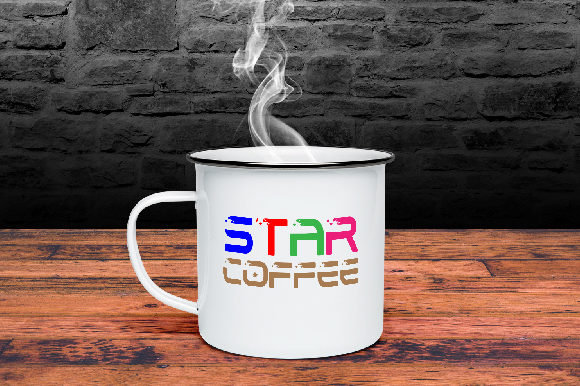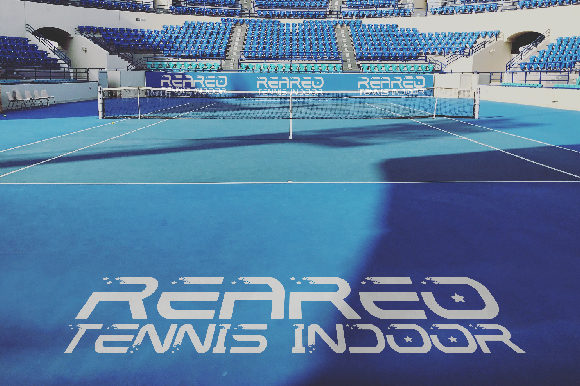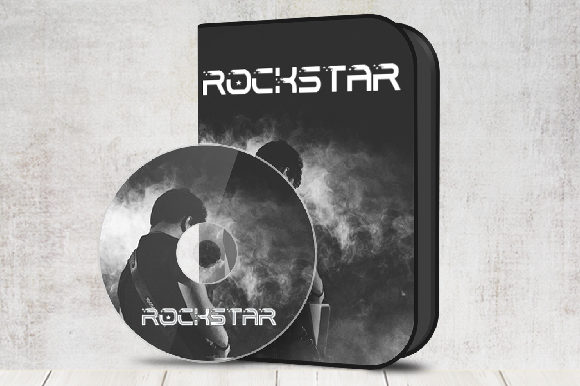
Introducing Fastar Font: Elevate Your Designs with a Spacey Twist
Are you tired of using the same old fonts in your design projects? Look no further than Fastar Font, a fresh and uniquely looking typeface that’s guaranteed to add a spacey feel to any design project. In this article, we’ll dive into the world of Fastar Font, exploring its features, benefits, and uses, and why it’s a must-have for designers and crafters alike.
The Origins of Fastar Font
Fastar Font is a modern sans-serif font that’s been carefully crafted to bring a sense of futurism and innovation to your designs. Its sleek lines, geometric shapes, and space-inspired aesthetic make it the perfect choice for projects that require a bold and eye-catching look. Whether you’re designing a logo, brochure, or website, Fastar Font is sure to make your project stand out from the crowd.
Key Features of Fastar Font
So, what makes Fastar Font so special? Here are some of its key features:
- Unique and quirky design: Fastar Font boasts a one-of-a-kind design that’s sure to grab attention. Its space-inspired aesthetic is perfect for projects that require a bold and futuristic look.
- Highly legible: Despite its unique design, Fastar Font is highly legible, making it perfect for use in body text, headings, and titles.
- Versatile: Fastar Font is a versatile font that can be used in a wide range of design projects, from logos and branding to websites and print materials.
- Easily customizable: Fastar Font is easy to customize, allowing you to adjust its size, color, and style to suit your design needs.
Benefits of Using Fastar Font
So, why should you choose Fastar Font for your next design project? Here are some of the benefits of using this amazing font:
- Adds a spacey feel to your designs: Fastar Font is guaranteed to add a spacey feel to any design project, making it perfect for projects that require a bold and futuristic look.
- Helps you stand out from the crowd: With its unique and quirky design, Fastar Font is sure to help your project stand out from the crowd and grab attention.
- Perfect for creative projects: Fastar Font is perfect for creative projects, such as logos, branding, and websites, where a bold and eye-catching look is required.
- Easily pairs with other fonts: Fastar Font easily pairs with other fonts, making it perfect for use in combination with other typefaces.
Using Fastar Font in Your Design Projects
So, how can you use Fastar Font in your design projects? Here are some ideas to get you started:
- Logos and branding: Use Fastar Font to create a bold and eye-catching logo that’s sure to grab attention.
- Websites: Use Fastar Font as a heading or title font to add a spacey feel to your website.
- Print materials: Use Fastar Font in print materials, such as brochures, flyers, and posters, to add a bold and futuristic look.
- Social media graphics: Use Fastar Font to create eye-catching social media graphics that are sure to grab attention.
In conclusion, Fastar Font is a fresh and uniquely looking typeface that’s guaranteed to add a spacey feel to any design project. With its sleek lines, geometric shapes, and space-inspired aesthetic, it’s the perfect choice for projects that require a bold and eye-catching look. Whether you’re a designer, crafter, or DIY enthusiast, Fastar Font is a must-have font that’s sure to elevate your designs to the next level.